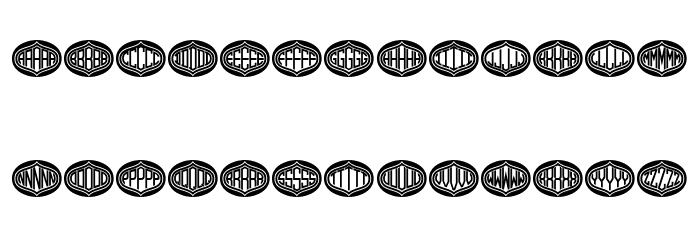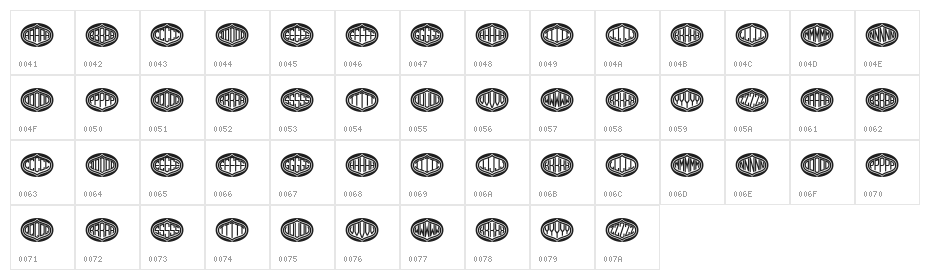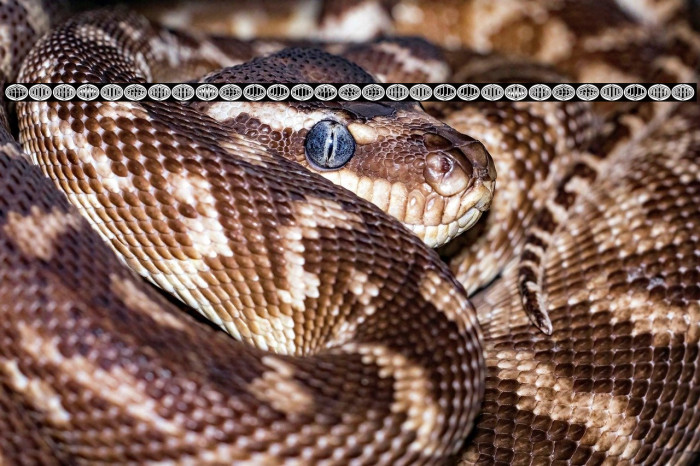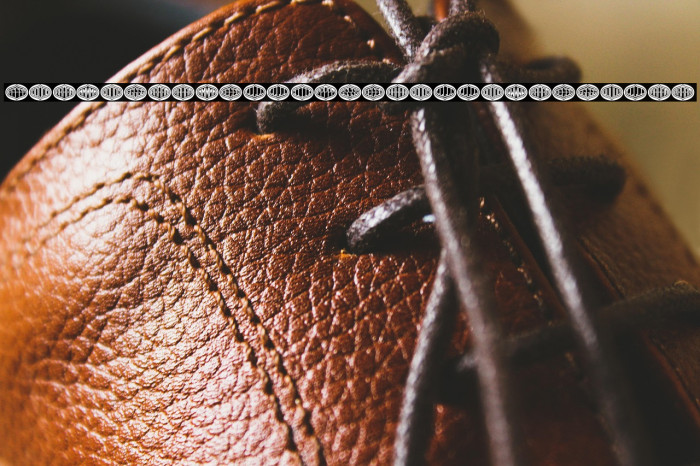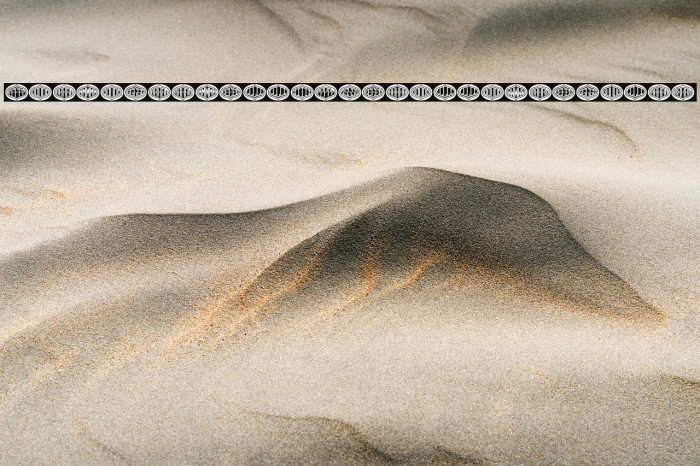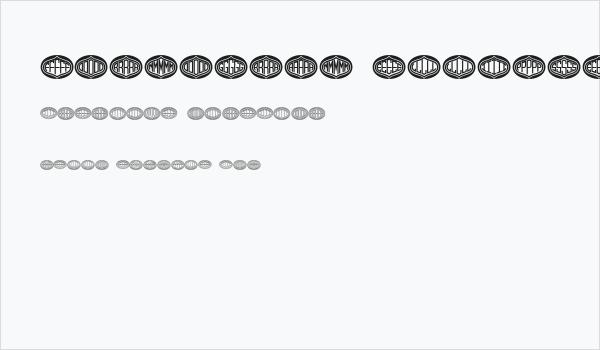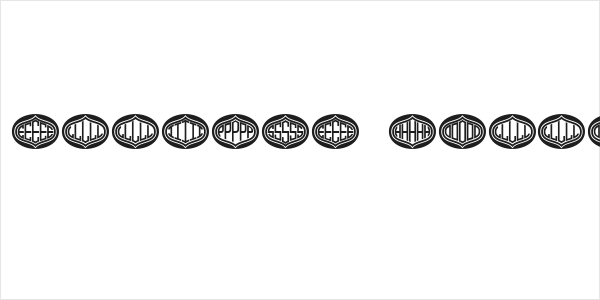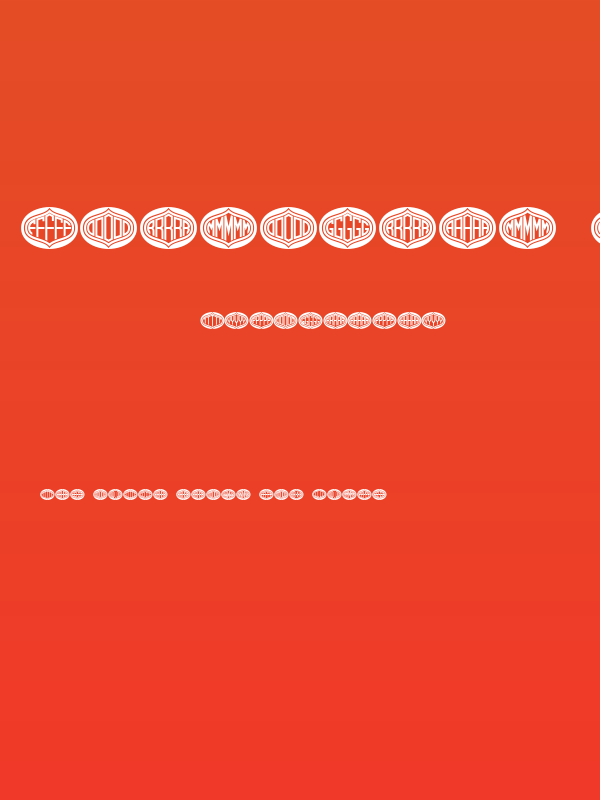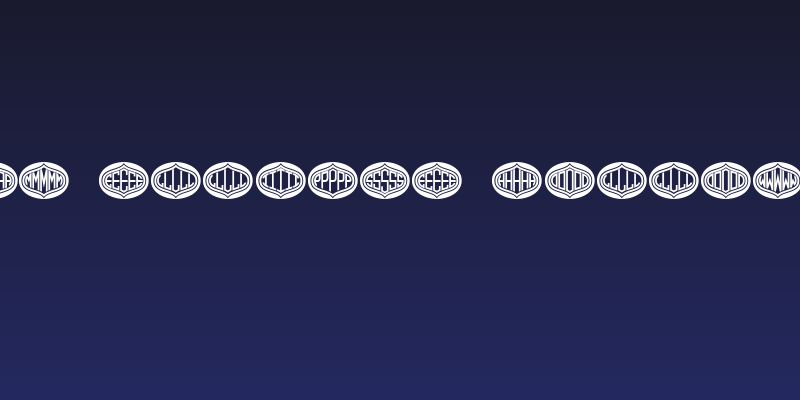
Formogram Ellipse Hollow Regular Font
Formogram Ellipse Hollow Regular Description
This font features a unique design where each character is enclosed within an elliptical shape, giving it a distinctive and decorative appearance. The characters themselves are hollow, with a consistent stroke width that creates a uniform look across the entire set. The font has a geometric and modern feel, with clean lines and a structured form. The hollow nature of the characters adds an element of lightness and openness, making it suitable for creative and artistic projects. The consistent use of ellipses around each character adds a cohesive and harmonious aesthetic, making it ideal for designs that require a bold yet elegant touch.
| Use Case | Logos, Posters, Branding |
| Proposed Projects | Ideal for logos, branding, posters, and any design that requires a unique and artistic touch. |